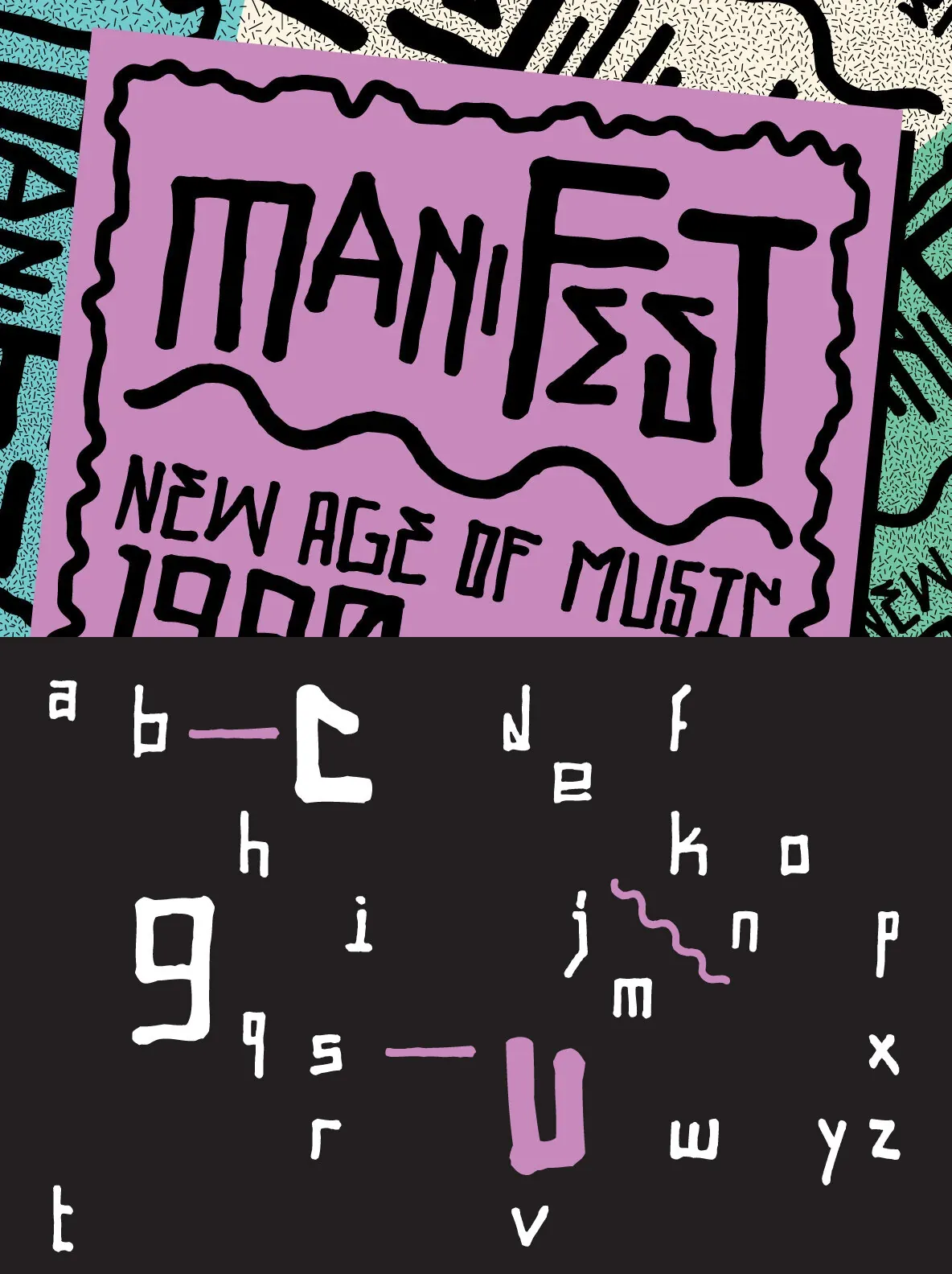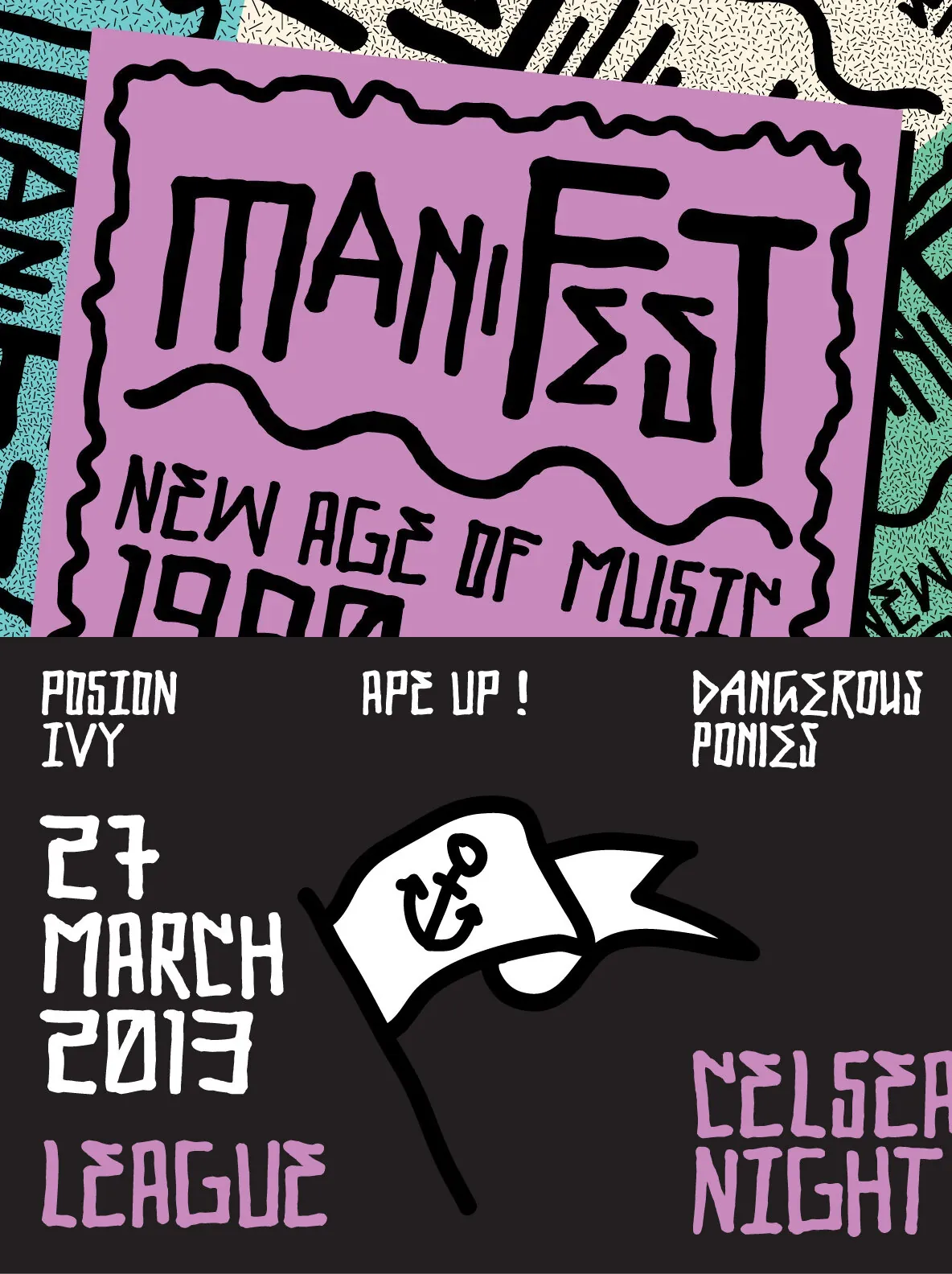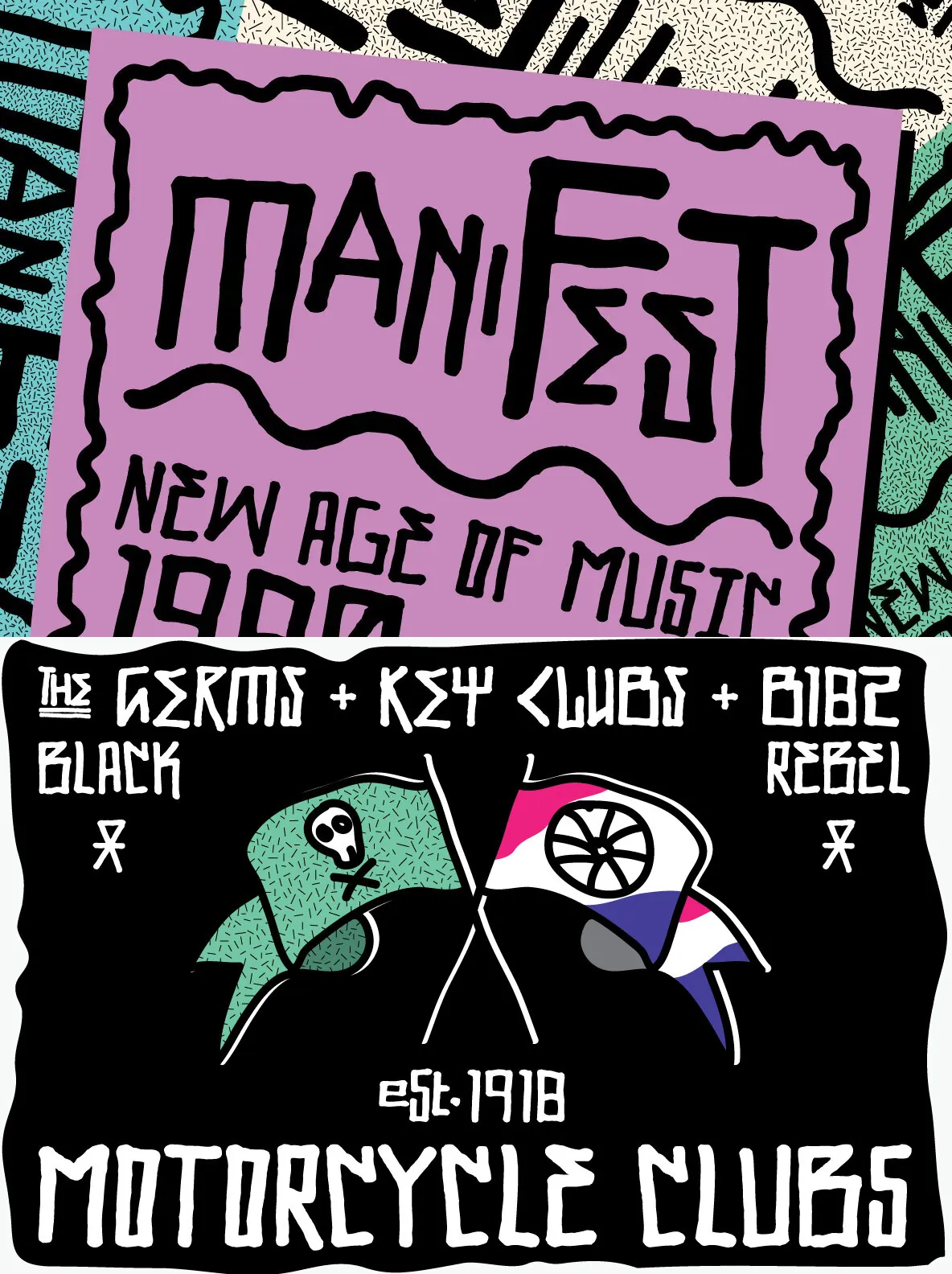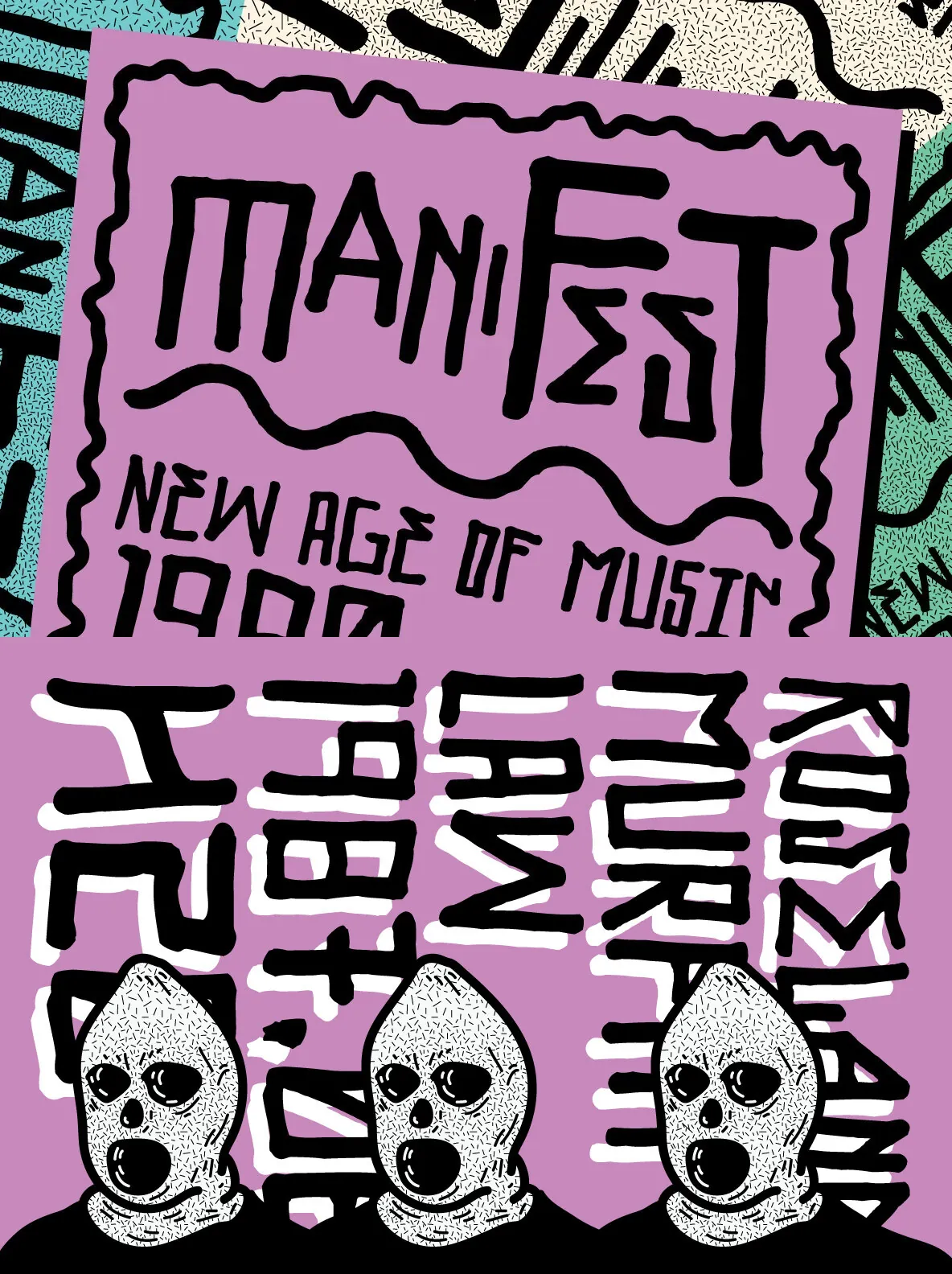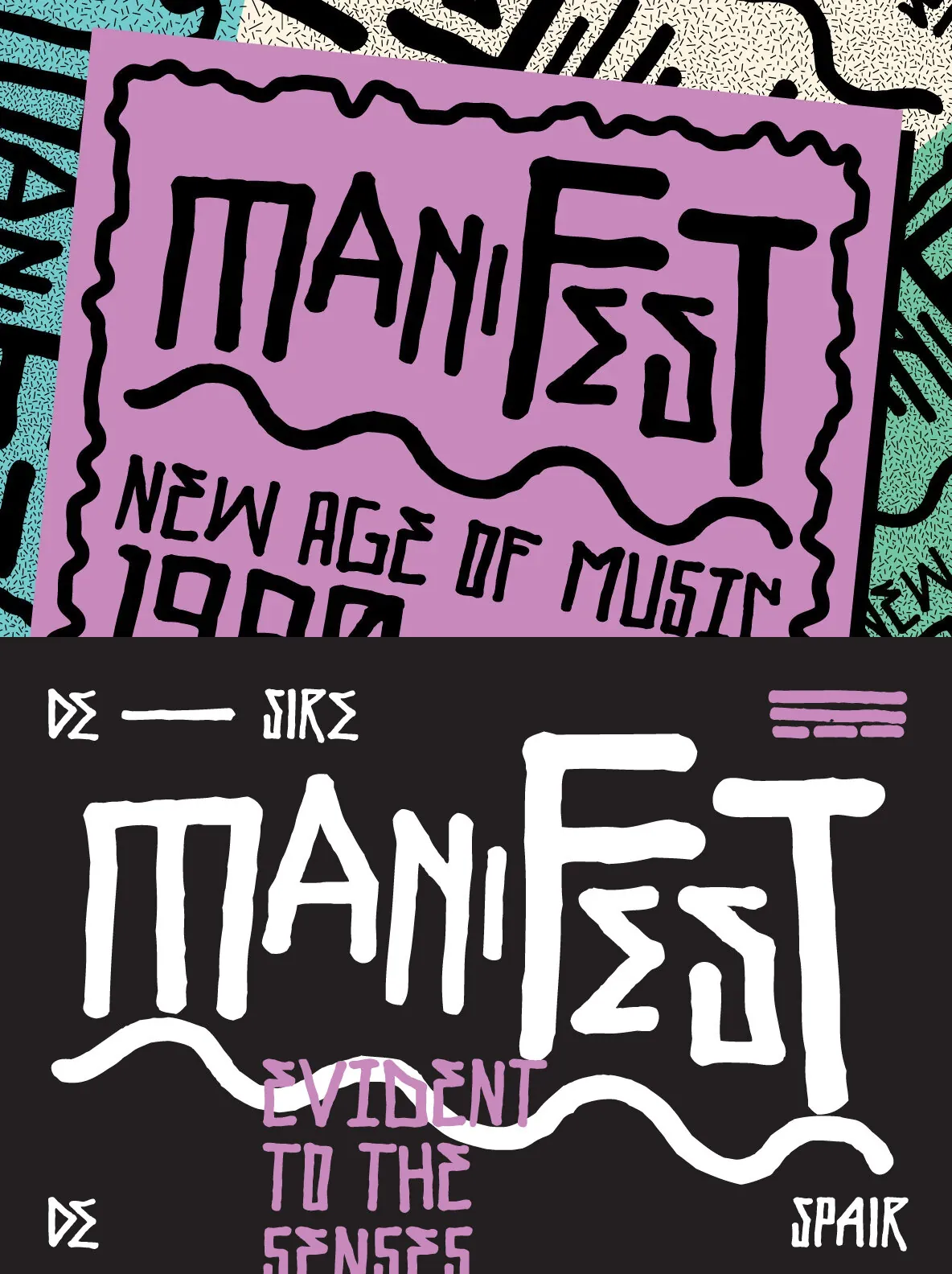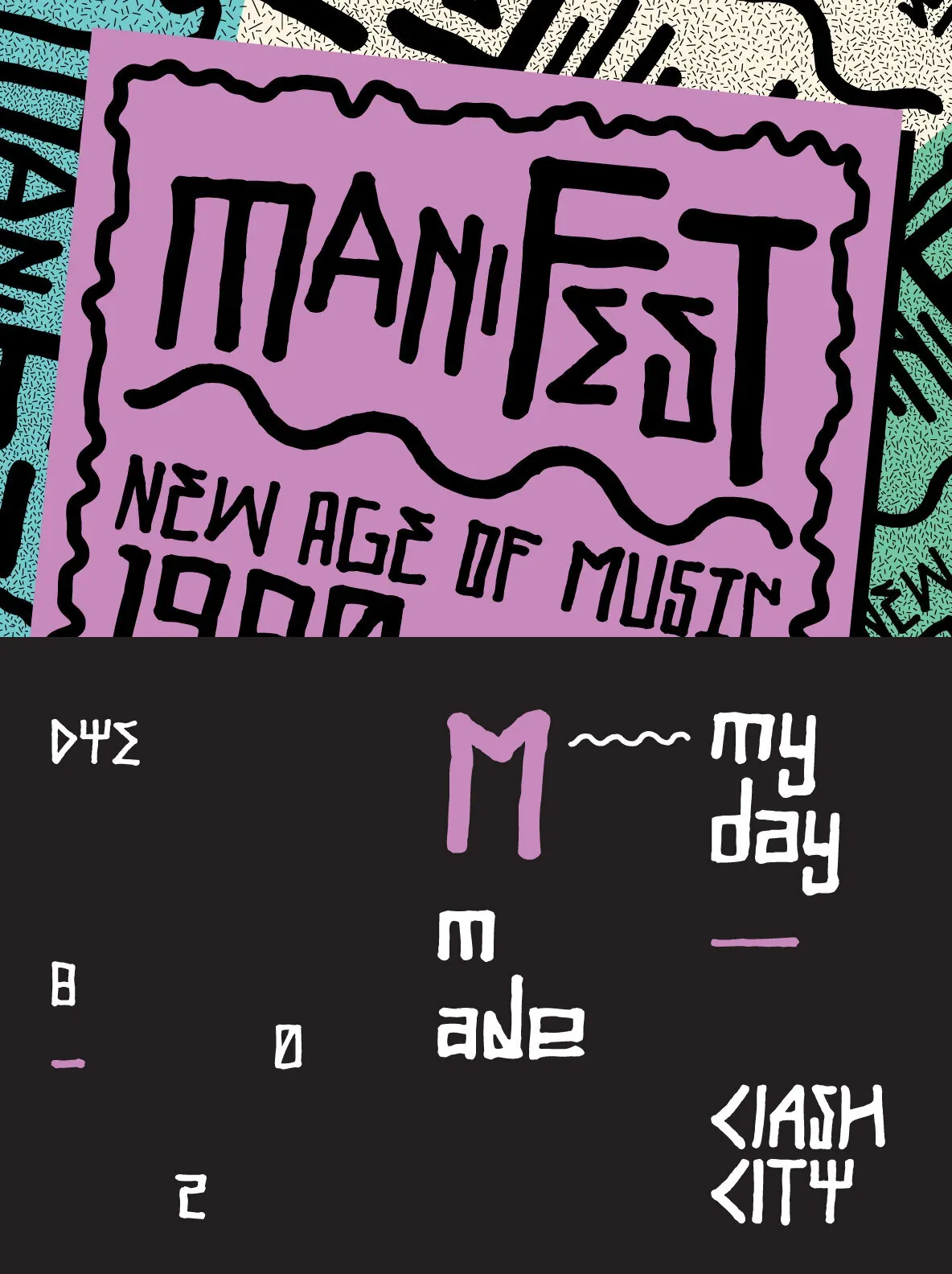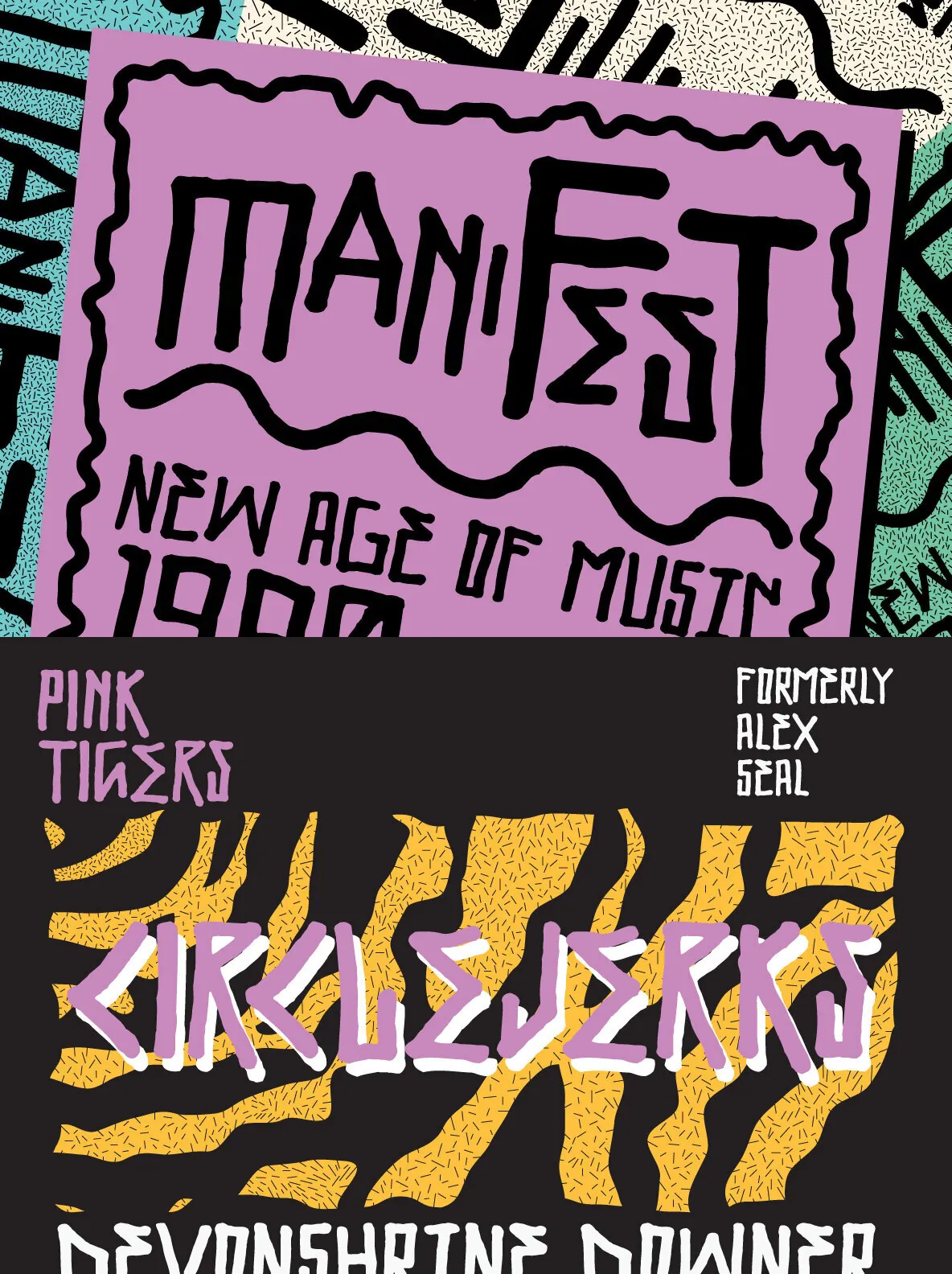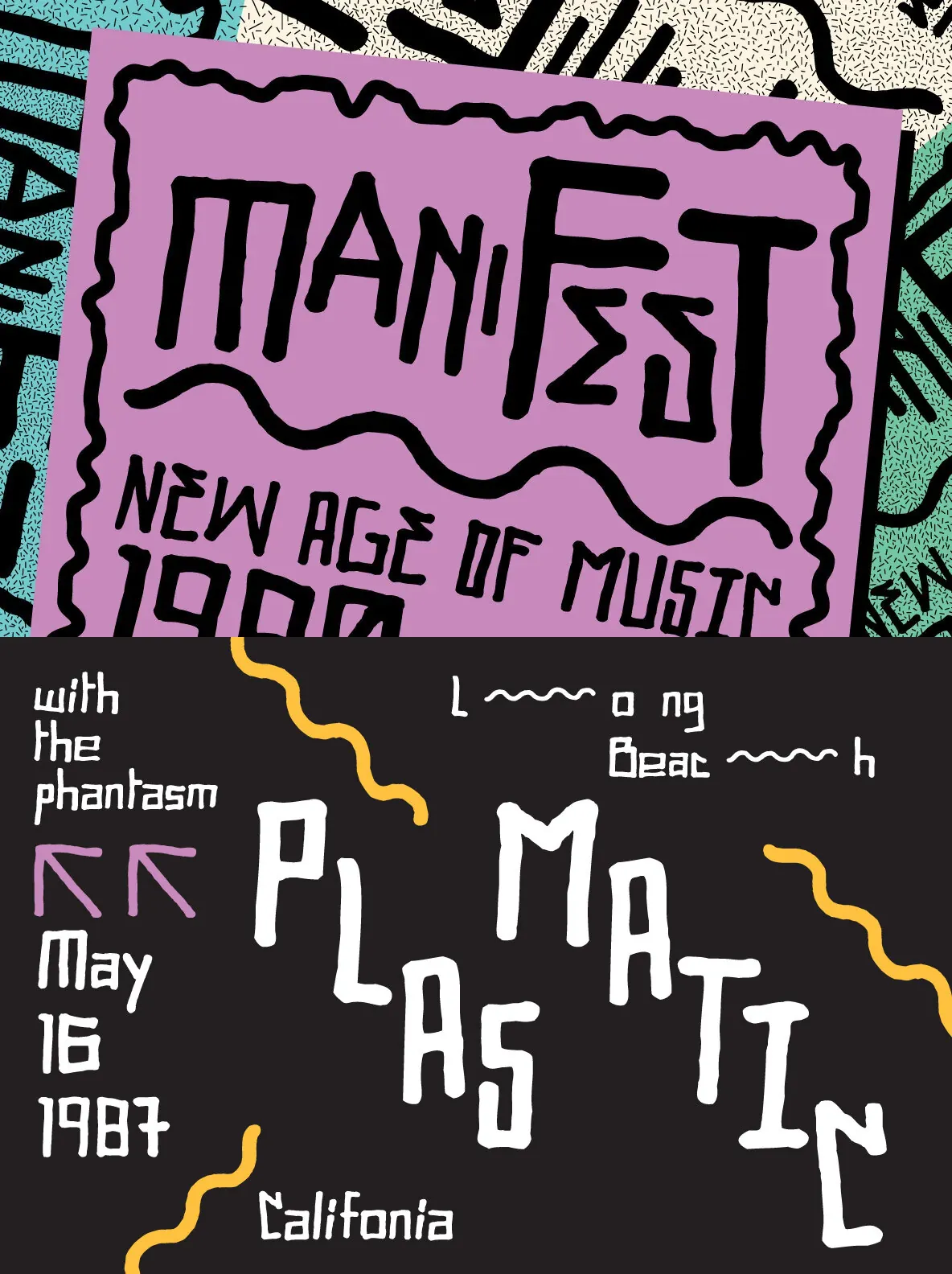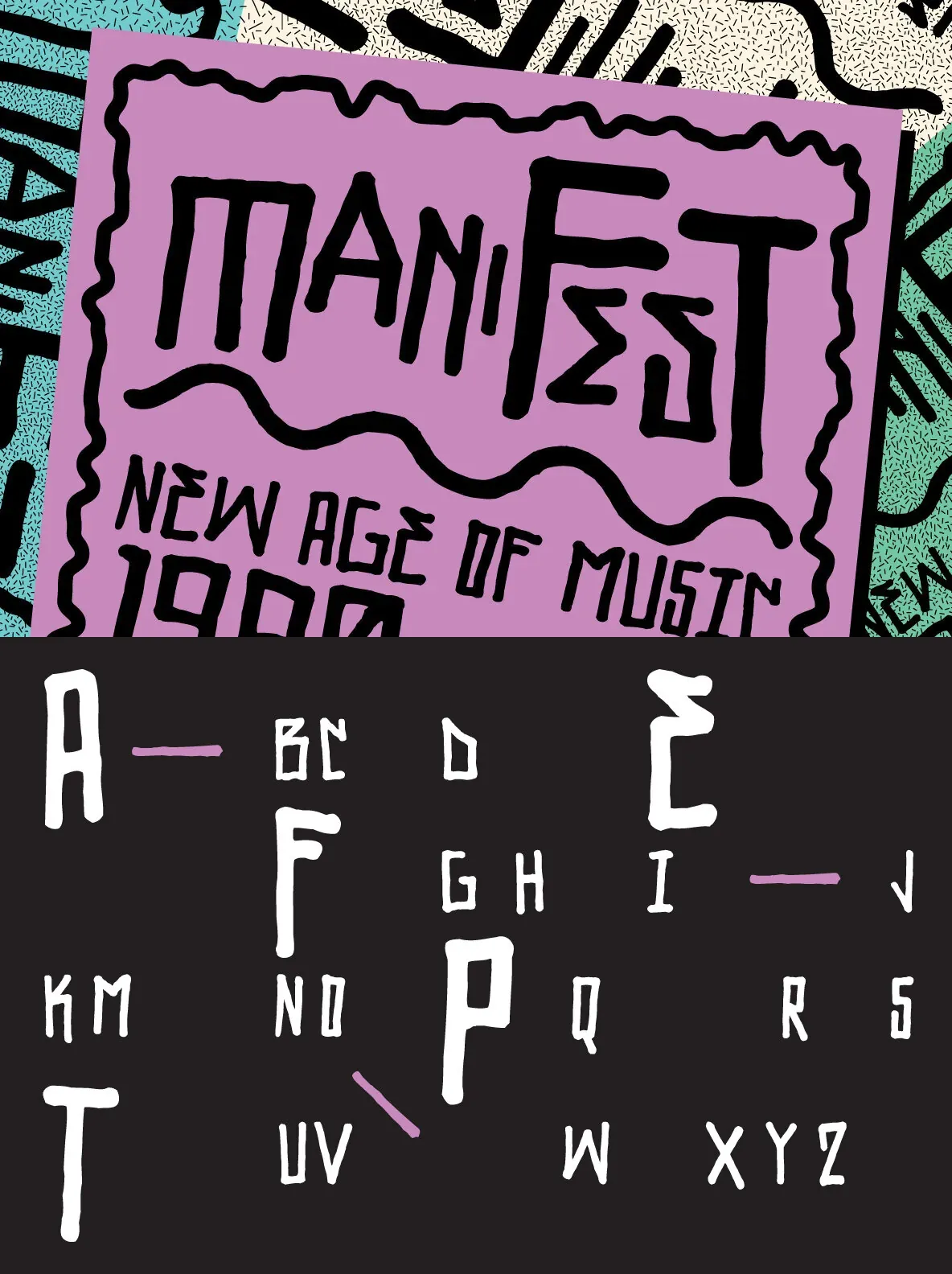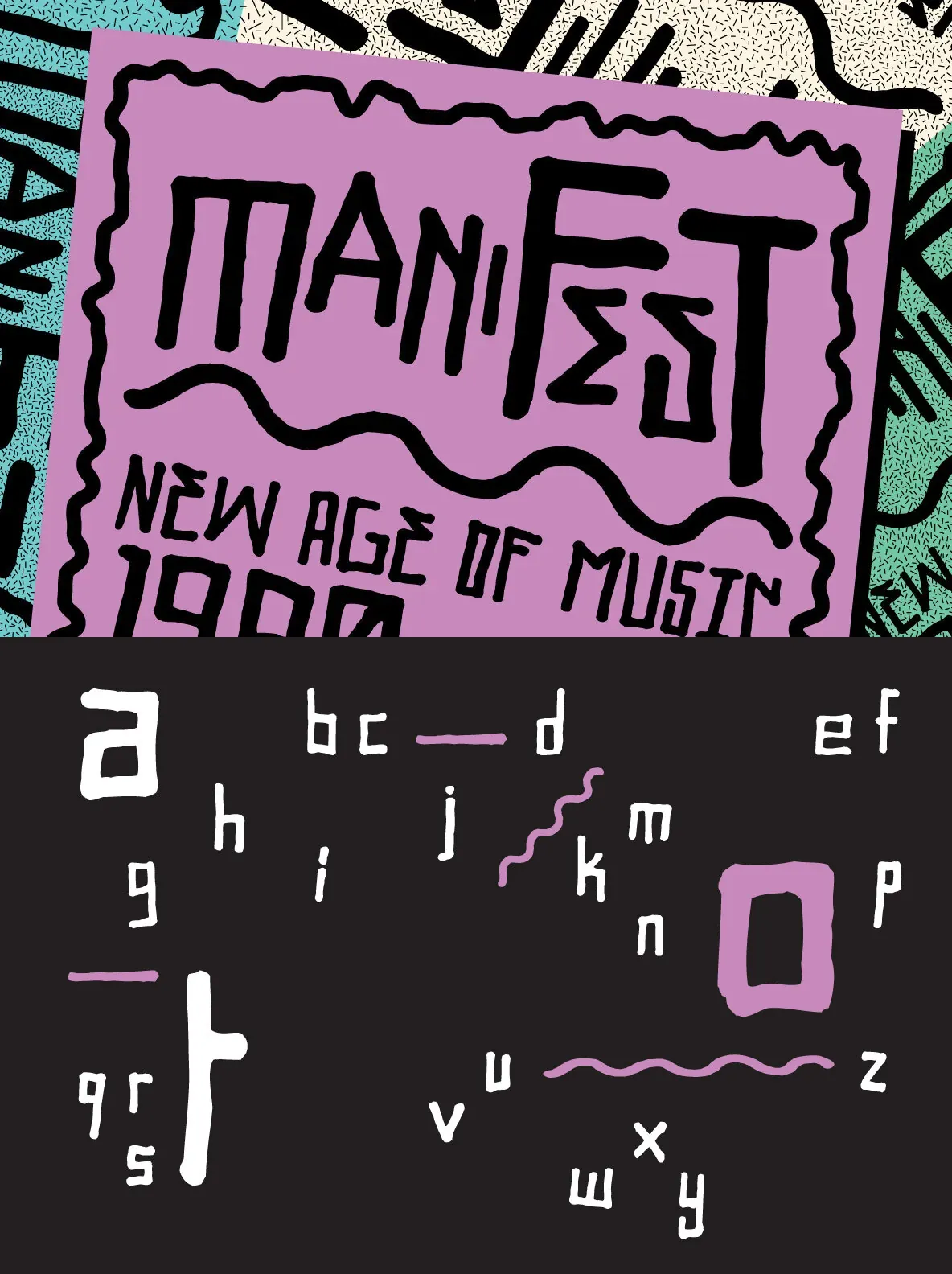
When you want to criticize the regime with style, you need to be as clear as Pussy Riot and as classic as MLK, and there’s no better way to do that than with YWFT Manifest. Loaded with OpenType features including two style sets, stylistic alternates, contextual alternates, discretionary ligatures, standard ligatures and somewhere north of 6800 kerning pairs, this Manifest may look punk on the surface, but it’s really the new boss underneath. Fight the power.
Designed by Tanawat Sakdawisarak and YouWorkForThem.